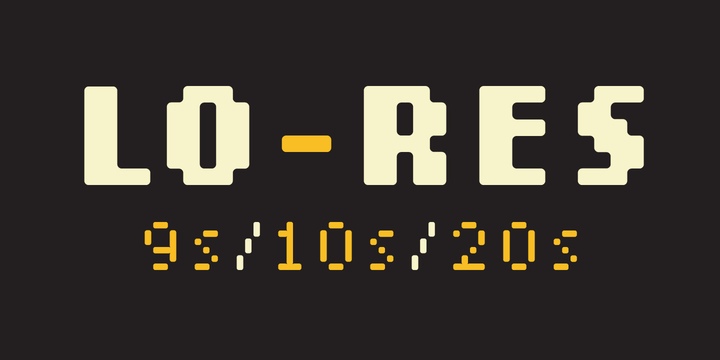
Lo-Res Font
Lo-Res Font is perfect for retro gaming brands, pixel art exhibitions, vintage tech museums, nostalgic arcade signage, 8-bit music album covers, retro computing events, classic video game merchandise, digital archaeology projects, vintage software documentation, and throwback technology celebrations.
What makes Lo-Res Font so exciting is its extraordinary ability to transport viewers back to the pioneering days of digital technology through pixelated letterforms that seem to emerge from classic computer monitors and pulse with the authentic energy of early digital revolution. This nostalgic typeface captures the essence of vintage computing and retro digital culture with characters that radiate both technological nostalgia and pioneering innovation spirit. The font's pixelated design elements perfectly balance historical authenticity with contemporary functionality, creating an indispensable tool that communicates digital heritage, retro-tech passion, and vintage computing authenticity, making it essential for brands and projects celebrating the foundational years of personal computing and the nostalgic charm of early digital aesthetics.
Lo-Res Font comes in multiple font families including Regular, Bold, Light, Pixelated, 8-Bit, Condensed, Extended, and Retro variations. Each family member maintains the core vintage digital characteristics while offering different pixel density levels and retro-tech approaches to suit various nostalgic computing and digital heritage design requirements.
The pixelated precision in Lo-Res Font makes it particularly effective for gaming industries and tech heritage organizations where conveying authentic vintage computing aesthetics and digital nostalgia is crucial for connecting with audiences who appreciate the foundational years of personal computing and early digital culture. Its retro letterforms work exceptionally well across both nostalgic gaming applications and contemporary digital heritage communications, maintaining consistent vintage appeal and authentic digital presentation.
Digital heritage professionals appreciate how Lo-Res Font transforms ordinary tech communications into nostalgic celebrations of computing history and digital pioneering. The typeface's pixelated character set includes special retro-tech symbols, vintage computing elements, and digital heritage features that enhance the overall nostalgic computing atmosphere of any vintage technology-focused project.
For creative professionals serving gaming museums, retro-tech brands, and digital heritage organizations, Lo-Res Font serves as the perfect foundation for establishing memorable visual identities that capture the essential qualities of digital pioneering, retro-tech authenticity, and computing nostalgia that define successful brands celebrating the remarkable journey from early computing pioneers to today's digital world and the enduring charm of vintage technology aesthetics.